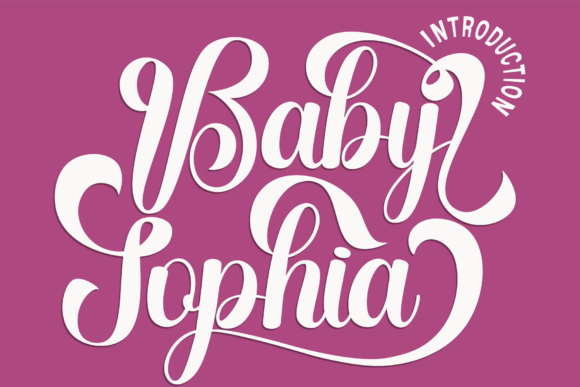
Discover the Sweet Charm of Baby Sophia Font
Have you ever stared at a blank page, waiting for the perfect font to bring your design to life? For many creatives, this is a familiar feeling – the thrill of the hunt for the perfect typeface to capture the essence of their vision. And when you find it, it’s like a breath of fresh air. This is exactly what happens when you come across the Baby Sophia Font.
This beautiful font exudes softness and elegance, making it the perfect choice for designers looking to add a touch of femininity to their projects. Whether you’re working on branding, titles, wedding designs, or invitations, the Baby Sophia Font is sure to elevate your work to new heights. With its graceful strokes and delicate charm, it’s no wonder why this font has become a go-to choice for designers seeking to create truly memorable designs.
Baby Sophia Font Key Features
- Font Family: Baby Sophia
- Font Type: Script
- Unique Characteristics: Handwritten, cursive, and elegant script font with a soft and delicate touch, ideal for feminine designs and invitations.
Designer Review: Baby Sophia Font
First of all, I have to say that the Baby Sophia Font is a beautifully crafted script font. ✨ The elegant, flowing lines and subtle flourishes give it a truly elegant feel. It’s perfect for adding a touch of sophistication to any design, from wedding invitations to nursery decor.
- ✨ The font’s versatility is one of its strongest suits. It works well in both uppercase and lowercase forms, and can be used to create beautiful headings, titles, and even body text.
- ✨ The font’s subtle texture and imperfections add a nice touch of authenticity to the design, making it feel more handmade and less mass-produced.
- ✨ The font’s range of weights and styles allows designers to create a cohesive look and feel across multiple design elements.
However, there are a few limitations to consider. ⚠️ The font may be a bit too ornate for some designs, and can be overwhelming if used too extensively. Additionally, the font’s subtlety may make it difficult to read in certain contexts, such as small text or low-resolution images.
Overall, I think the Baby Sophia Font is a great addition to any designer’s toolkit. While it may have some limitations, its unique charm and versatility make it a great choice for a wide range of design projects. With a bit of creative restraint, designers can use this font to create truly stunning and memorable designs.
Tips for Getting the Most Out of the Baby Sophia Font
The Baby Sophia Font is a versatile and elegant font that works well for a variety of designs, including:
- Baby shower invitations and decorations
- Children’s birthday party invitations and decorations
- Wedding invitations and decorations
To get the most out of the Baby Sophia Font, try using it in combination with other elegant fonts and design elements, such as floral patterns and soft colors.